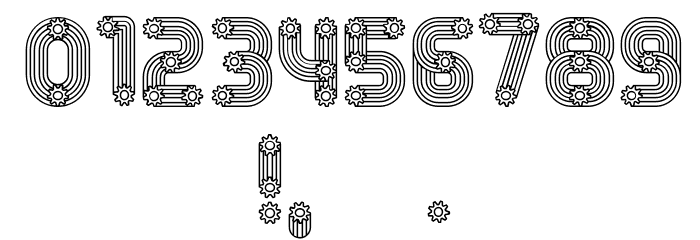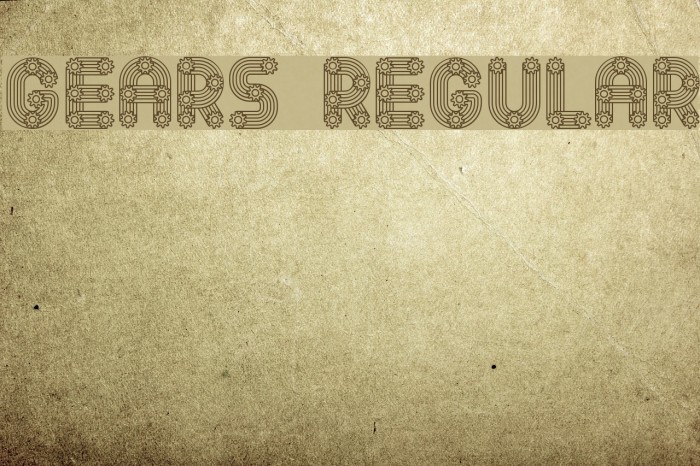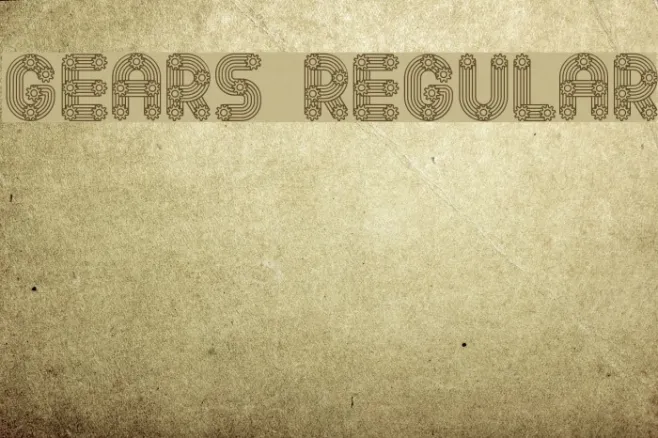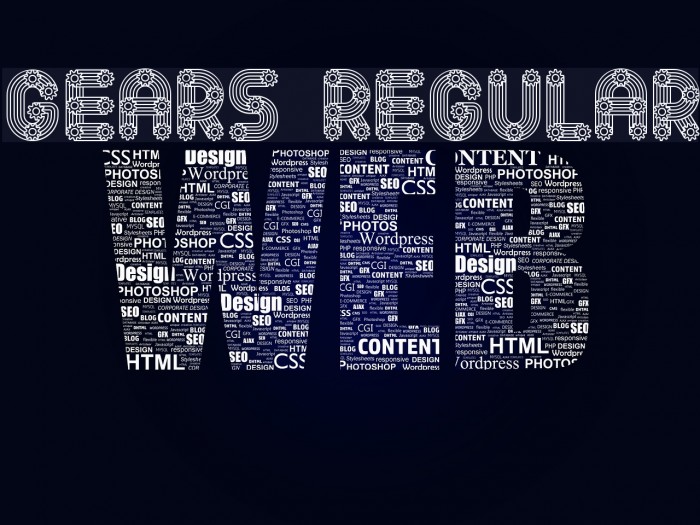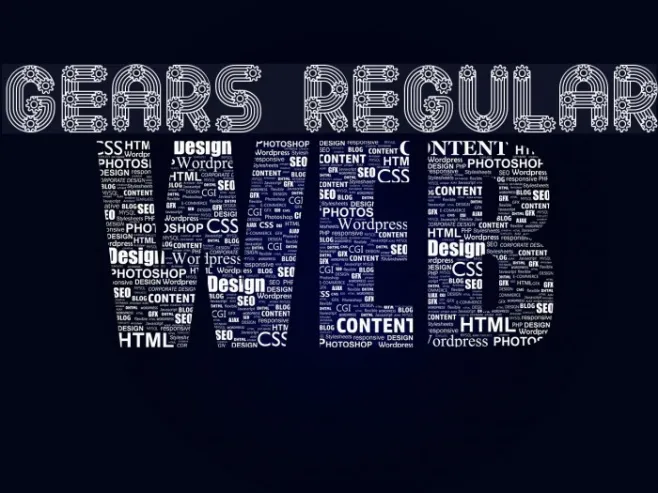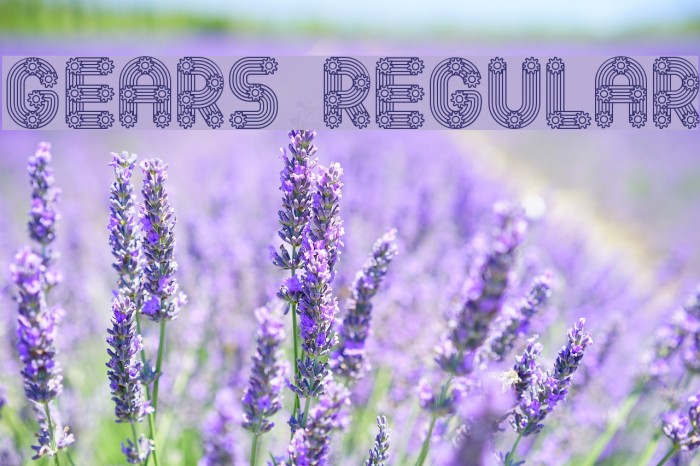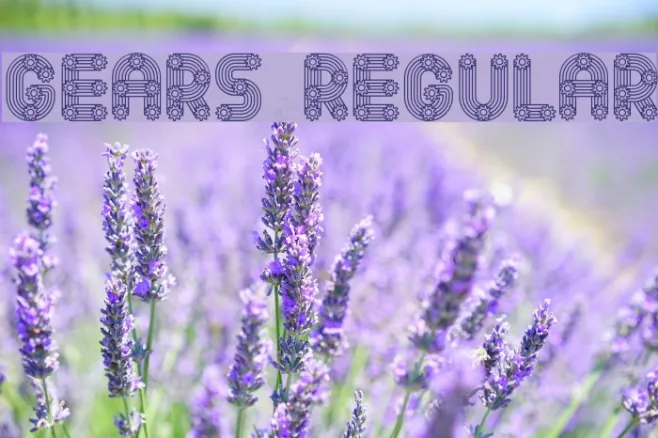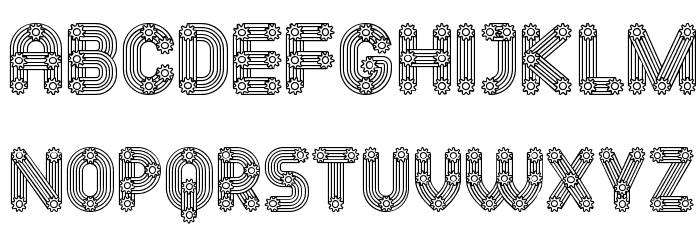
Gears Regular Font
Gears Regular Description
This font features a unique and intricate design that incorporates mechanical elements such as gears and cogs into each character. The letters and numbers are constructed with multiple lines and circular motifs, giving them a complex, industrial appearance. The overall aesthetic is both decorative and mechanical, making it stand out with its detailed and thematic style. Each character is adorned with small gear-like embellishments, creating a cohesive look that is both playful and sophisticated. The font's design is perfect for projects that require a touch of industrial flair or a steampunk vibe.
| Use Case | Logos, Posters, Themed Events |
| Proposed Projects | Ideal for steampunk-themed designs, industrial branding, creative posters, and unique logo designs. |